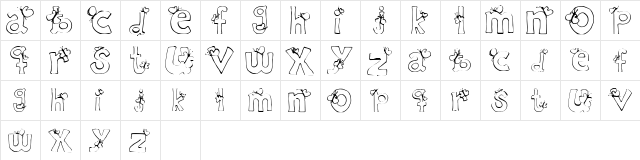
Ryp childC Regular
Design Context for Ryp childC Typeface
Ryp childC has an approachable, lighthearted character — its loose, expressive forms are well-suited to children's content, casual branding, and fun-first design.
Font Pairing: Pairs well with a rounded or humanist sans for body copy, maintaining the friendly tone without relying on Ryp childC to carry extended reading.
Pro Tip: Avoid using Ryp childC for long passages of text — it works best for headlines, labels, and short calls to action.